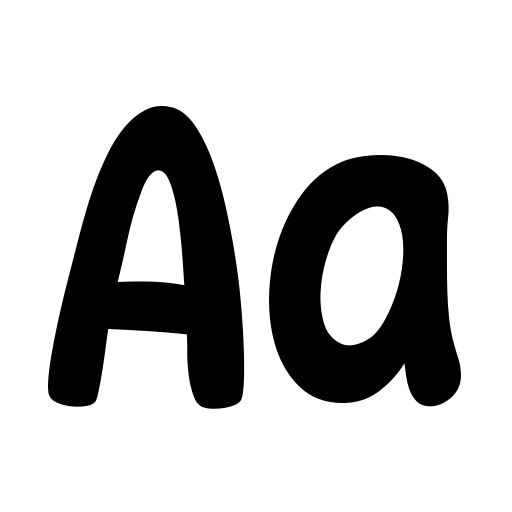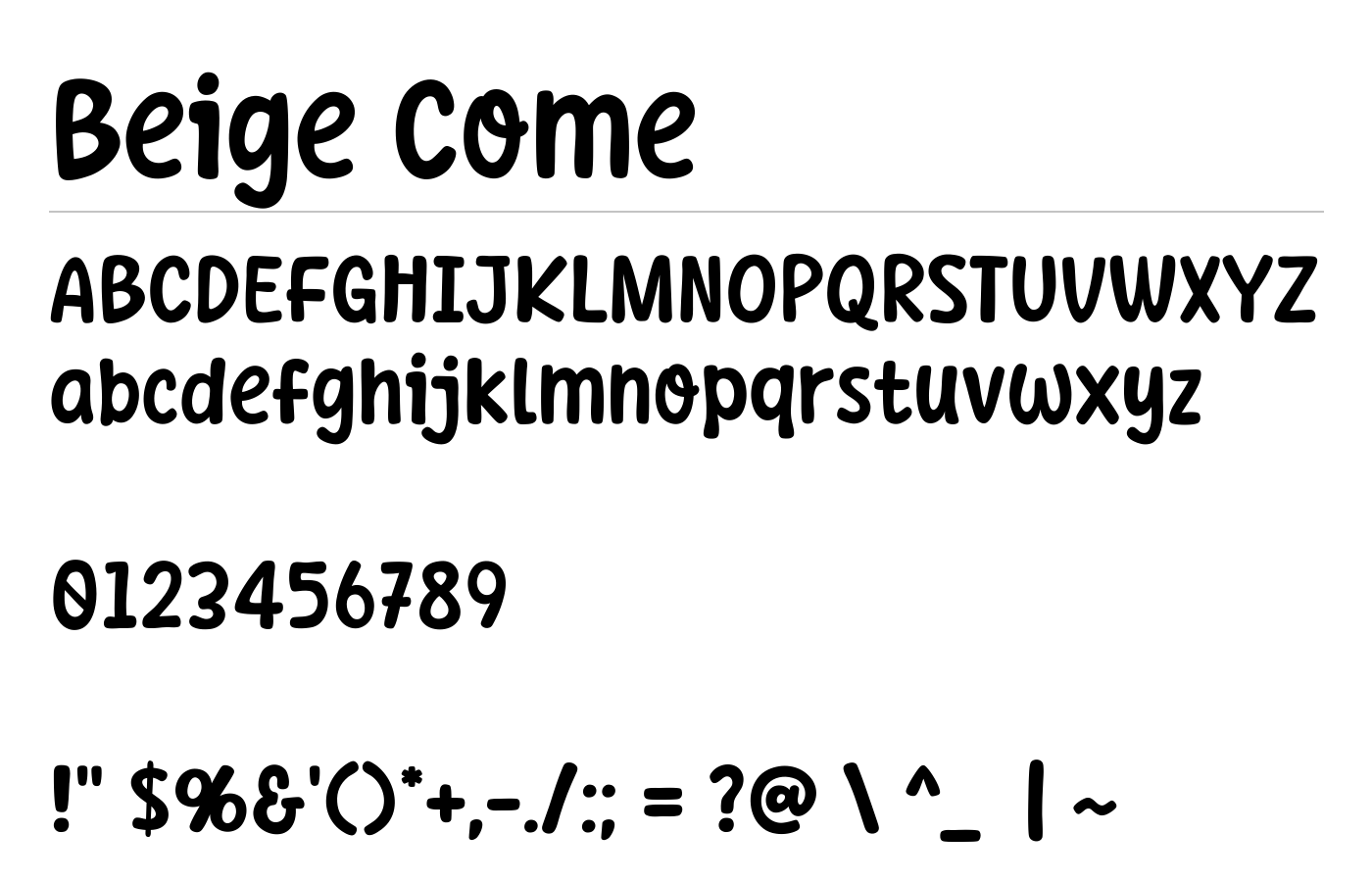
Beige Come is a playful and friendly sans serif font with a casual, hand-drawn feel. Its rounded, slightly uneven letterforms and moderate weight create an inviting and informal style, making it perfect for children’s books, casual branding, or fun headlines that need a touch of warmth and personality. This font works well in contexts where a relaxed, approachable tone is desired.
Beige Come Font
About Beige Come Font
| Designer | Khurasan & Jalembe |